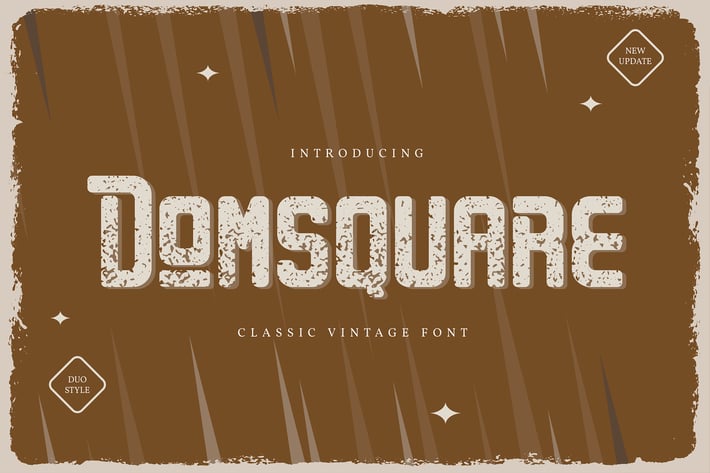
Domsquare | Classic Vintage Font
Domsquare | Classic Vintage Font with a calligraphy style, So beautiful on invitation like greeting cards, branding materials, business cards, quotes, posters, and more!